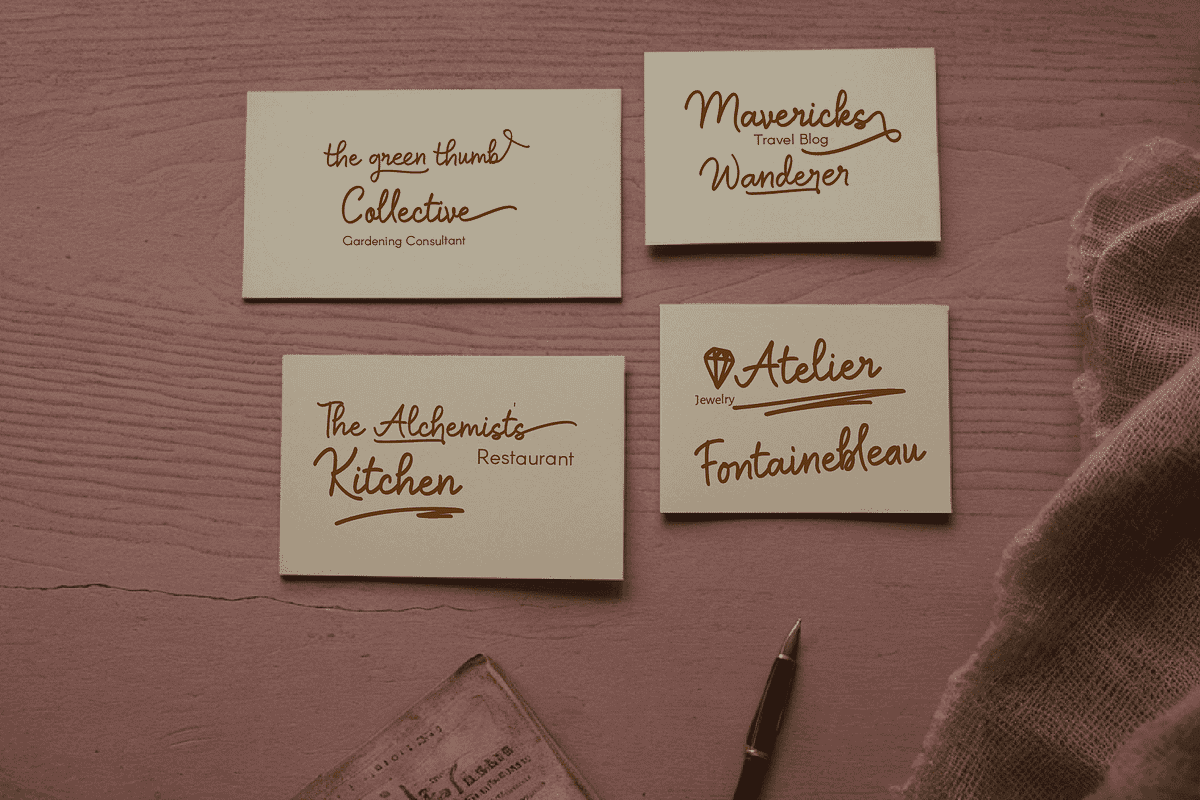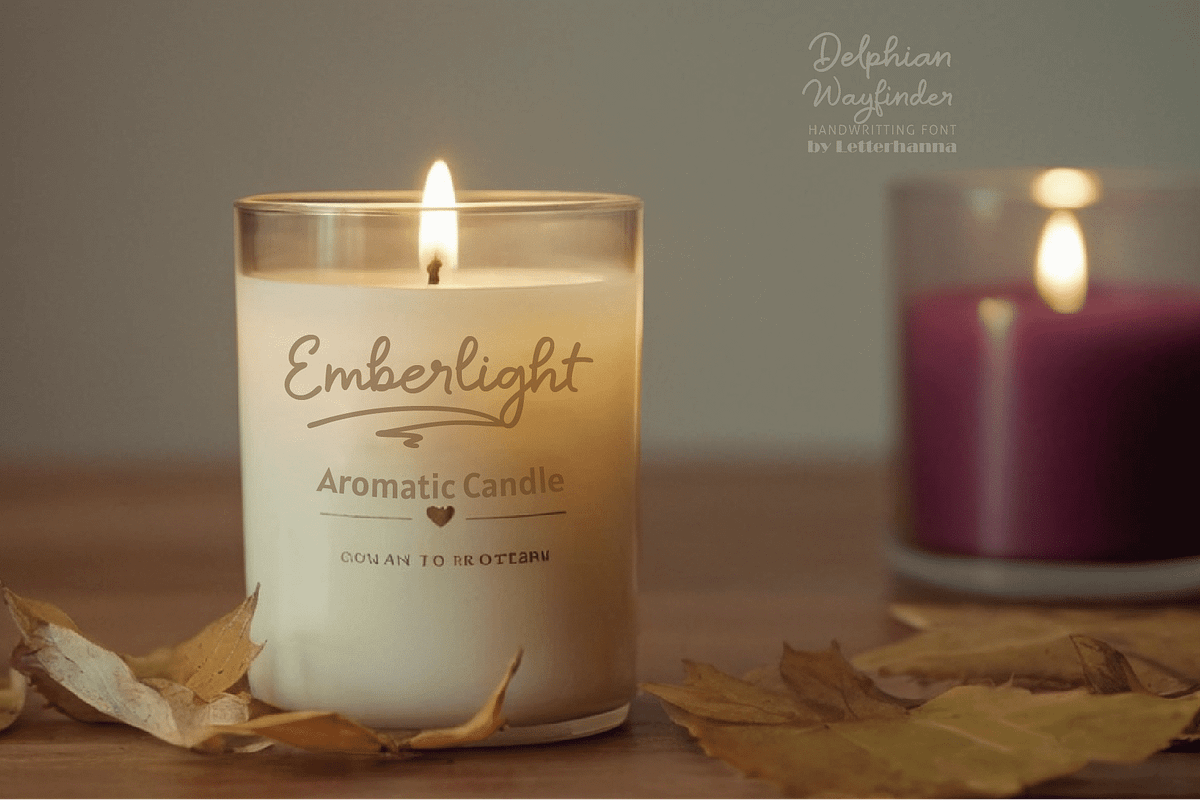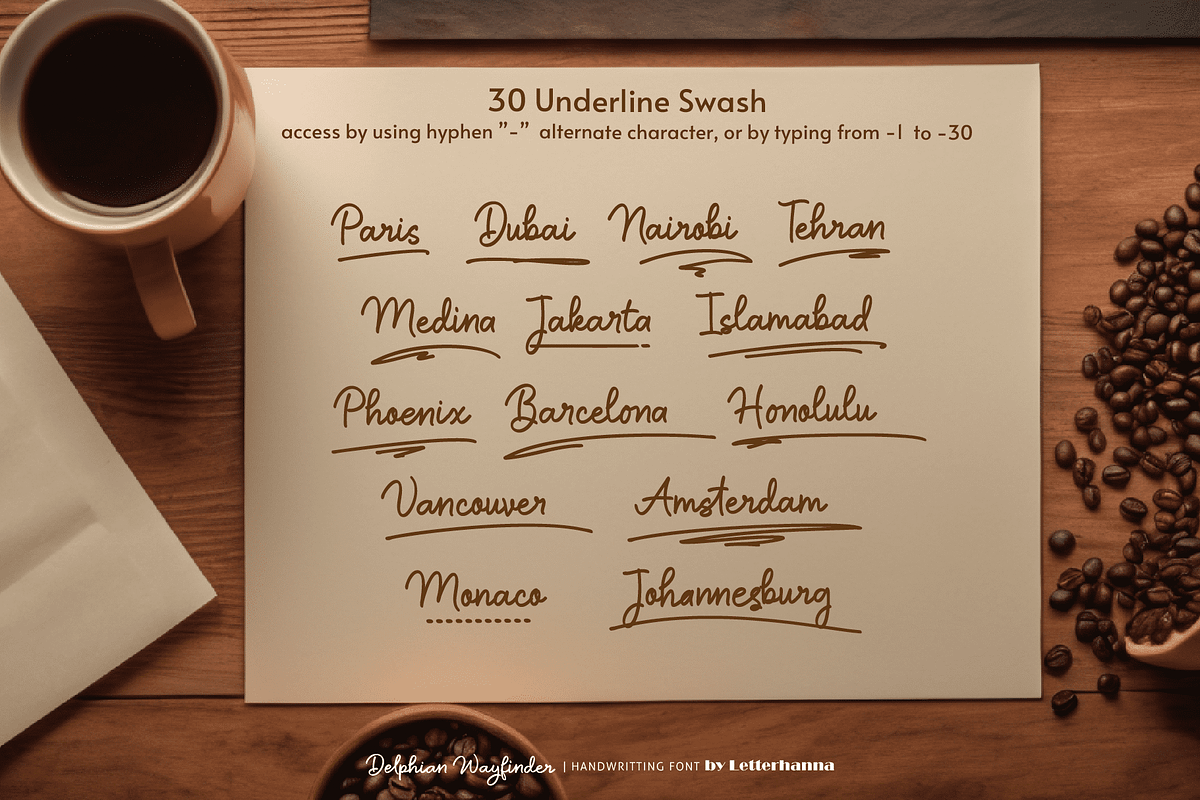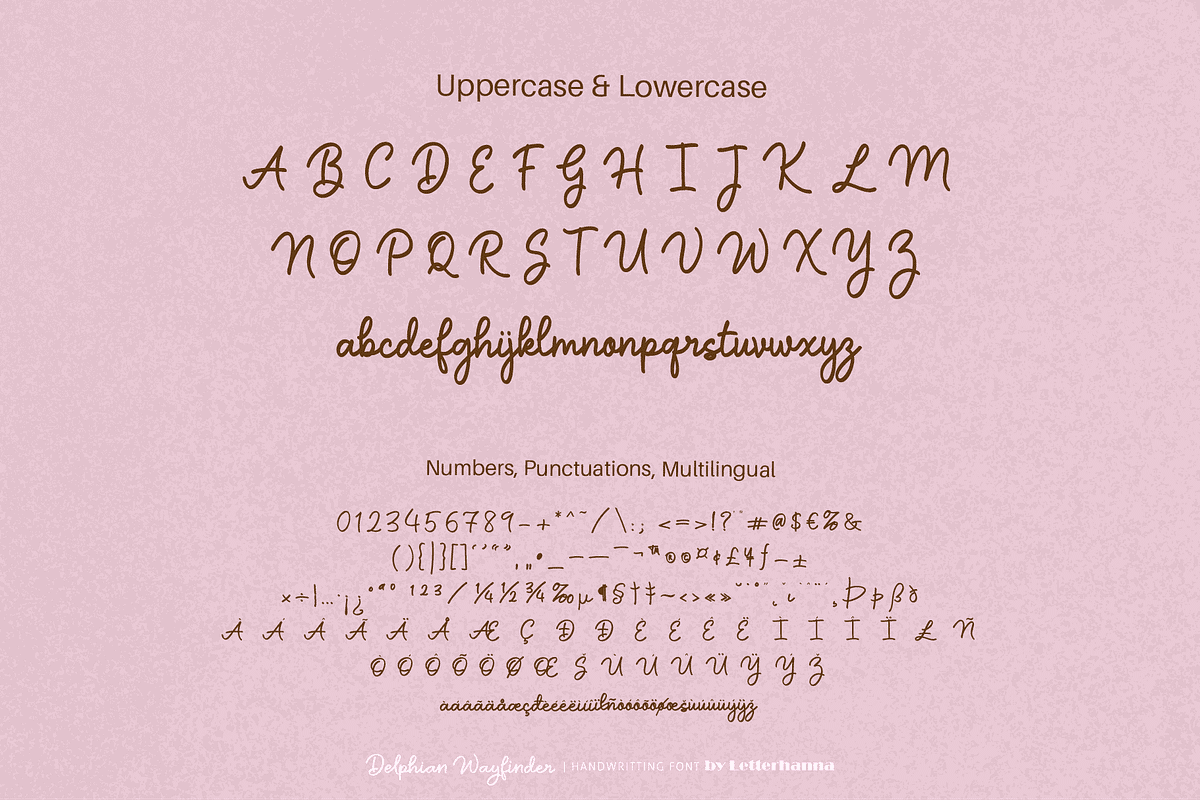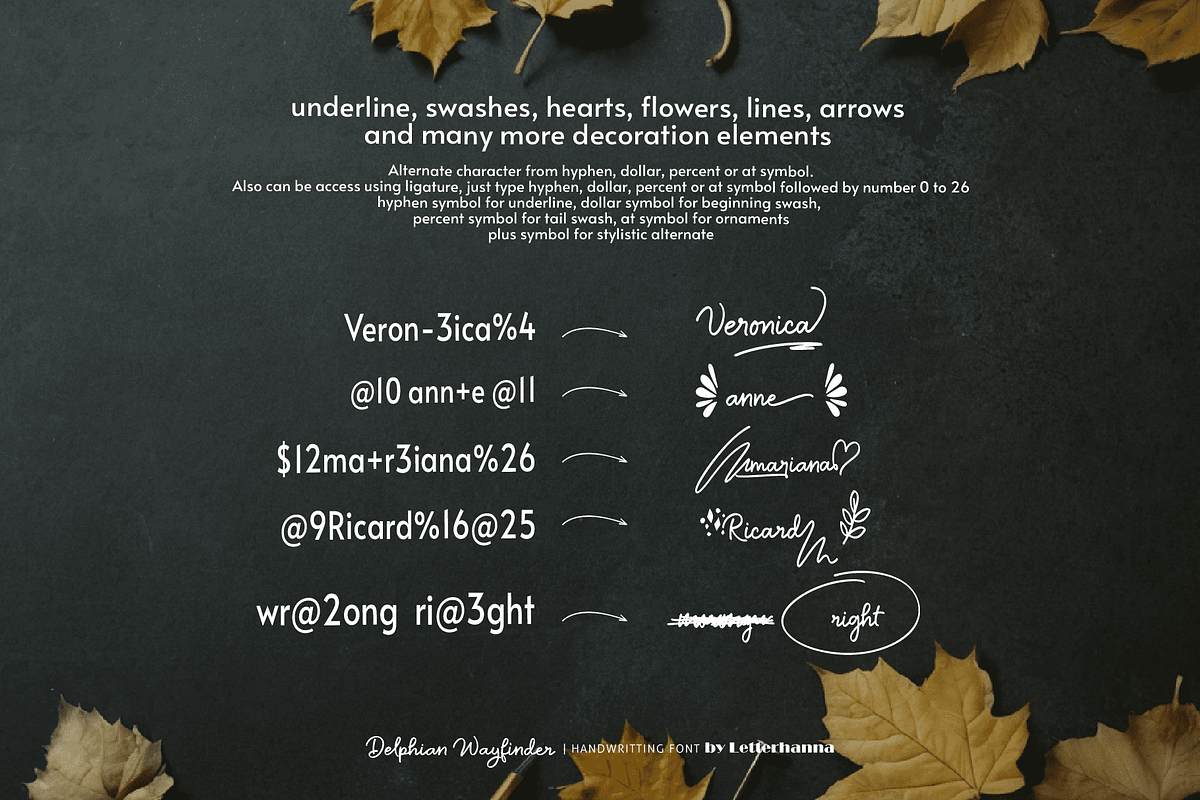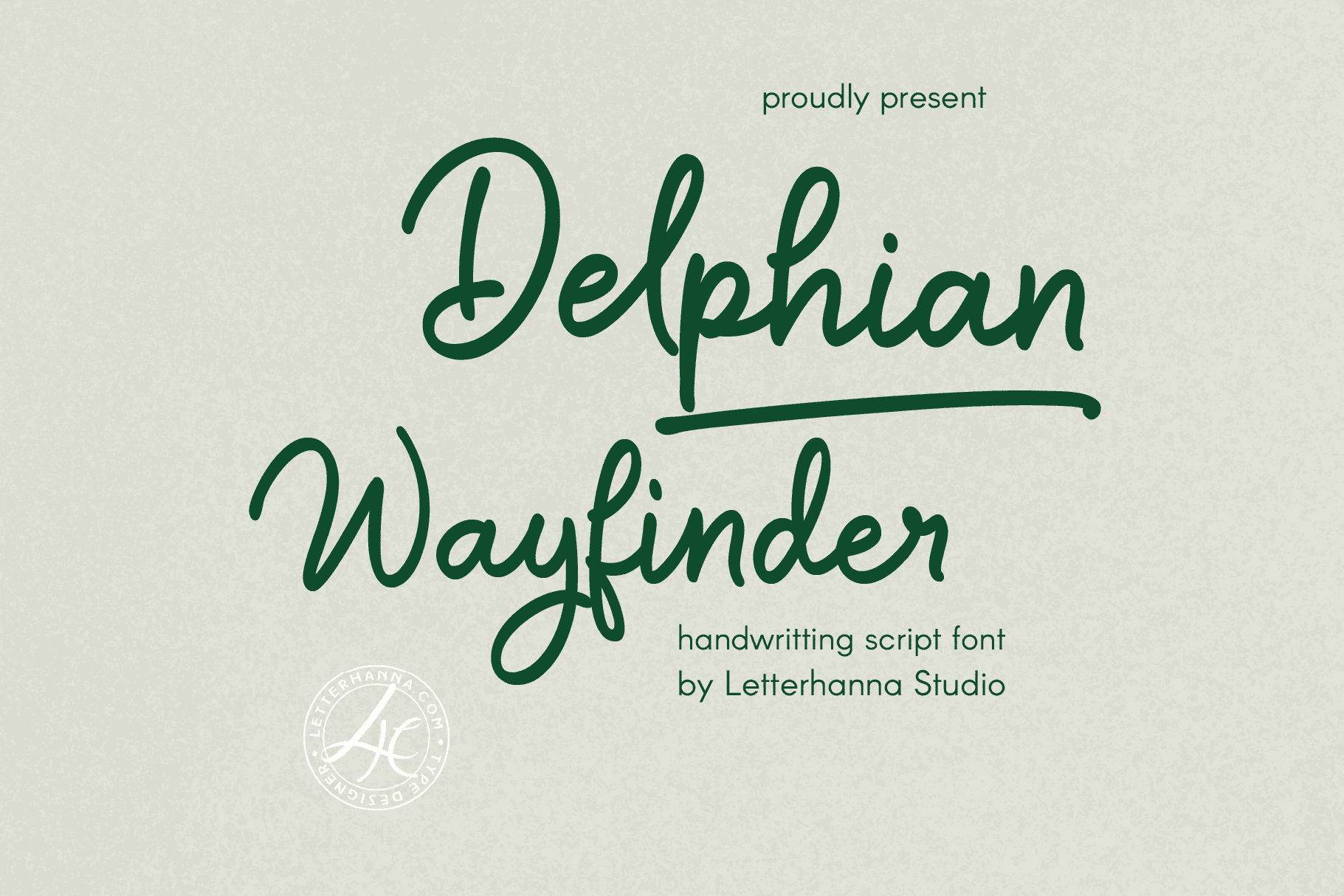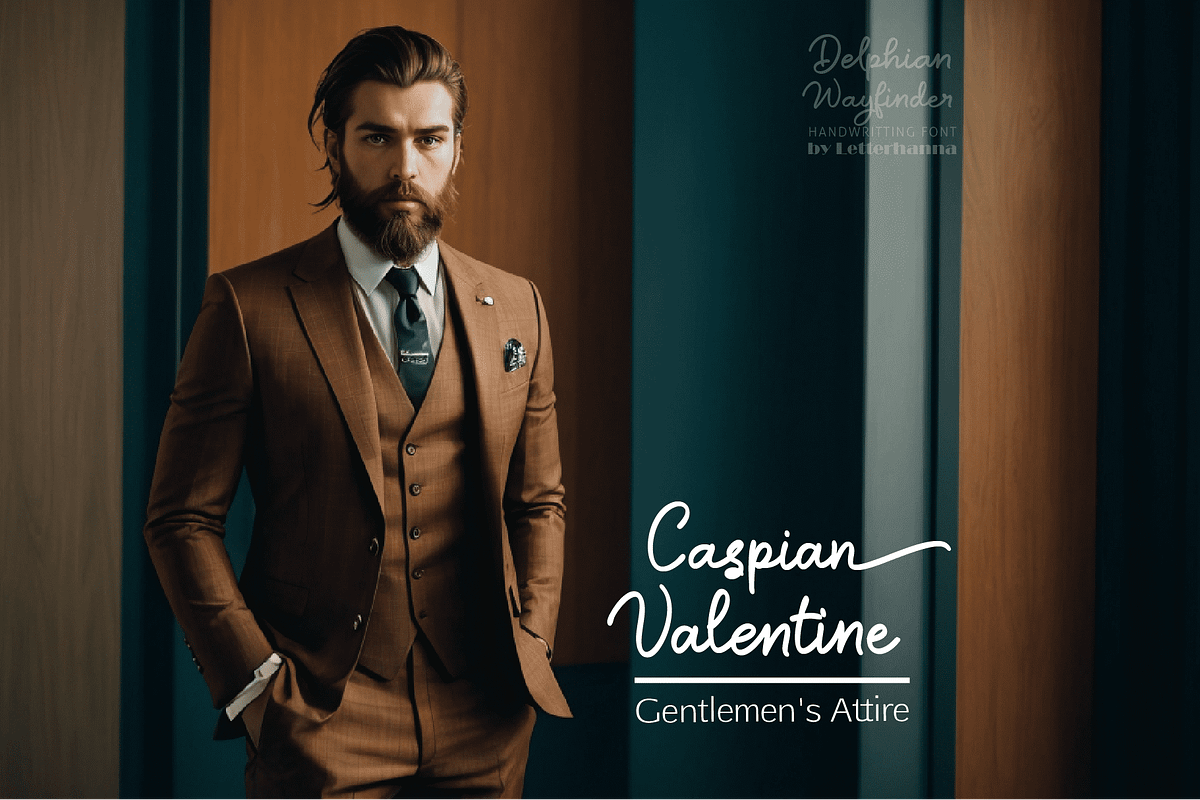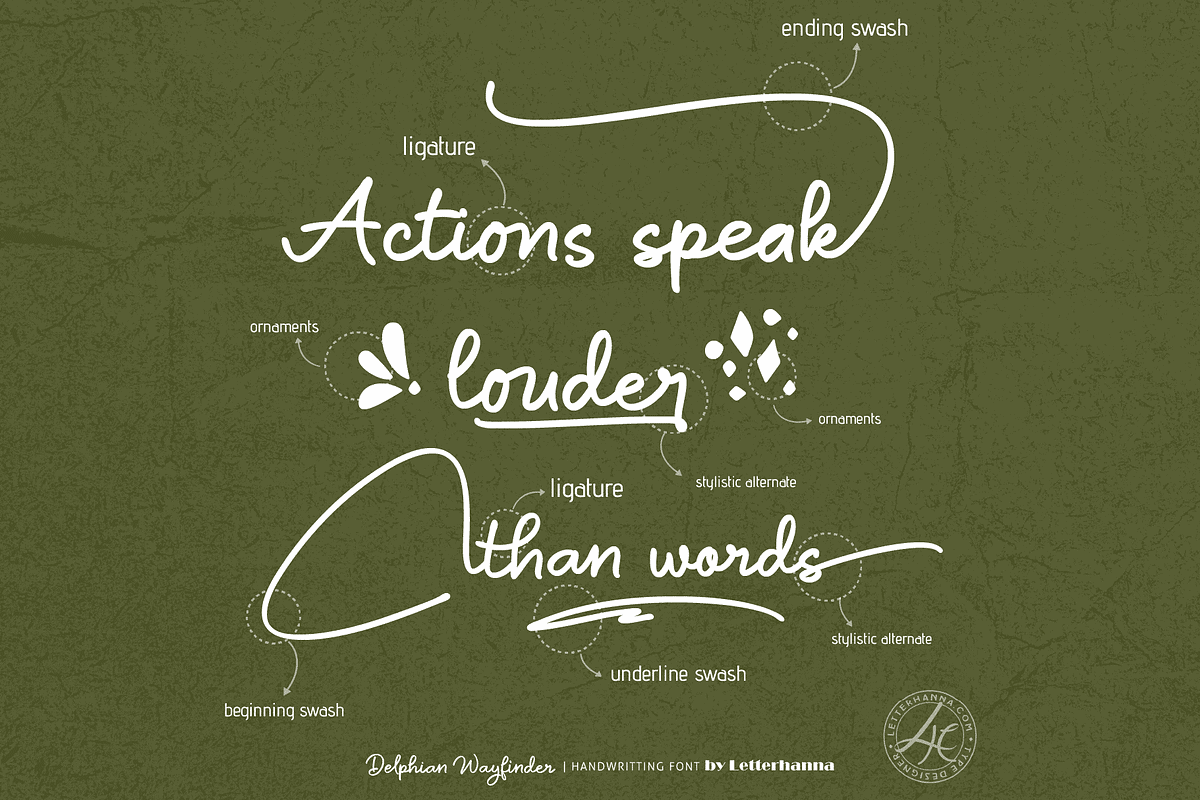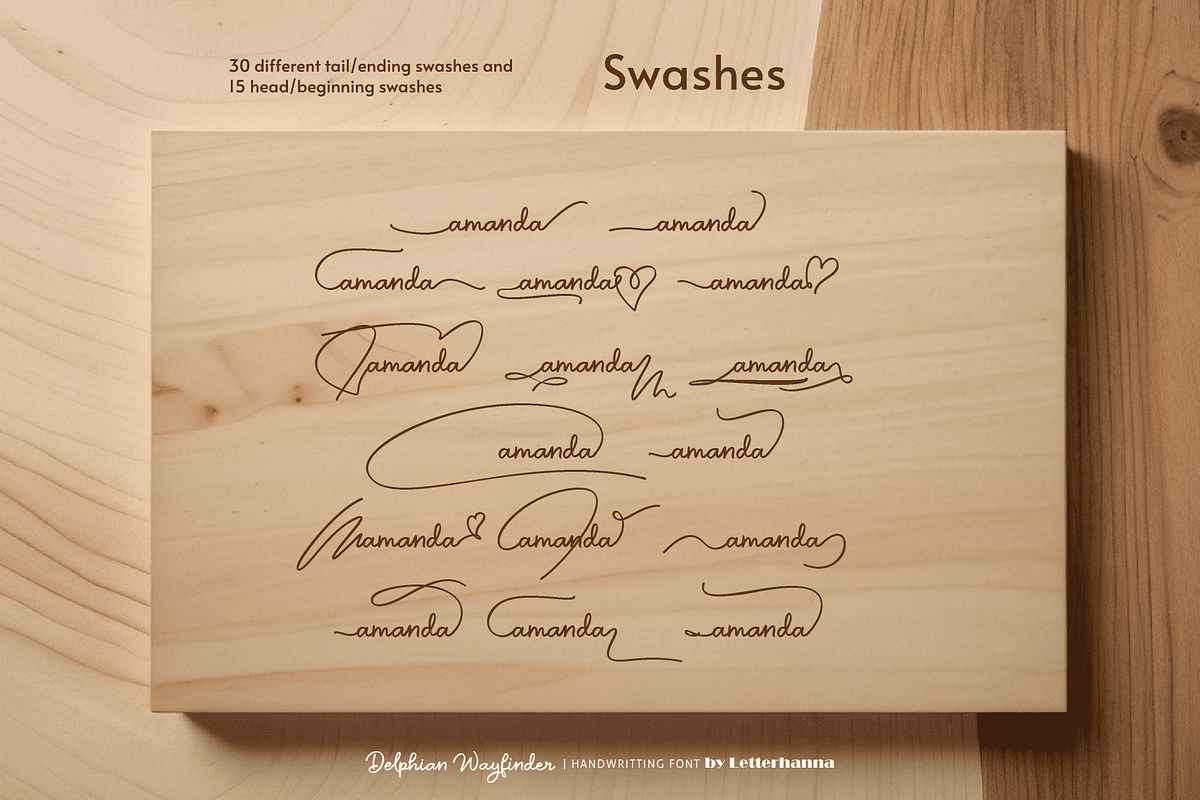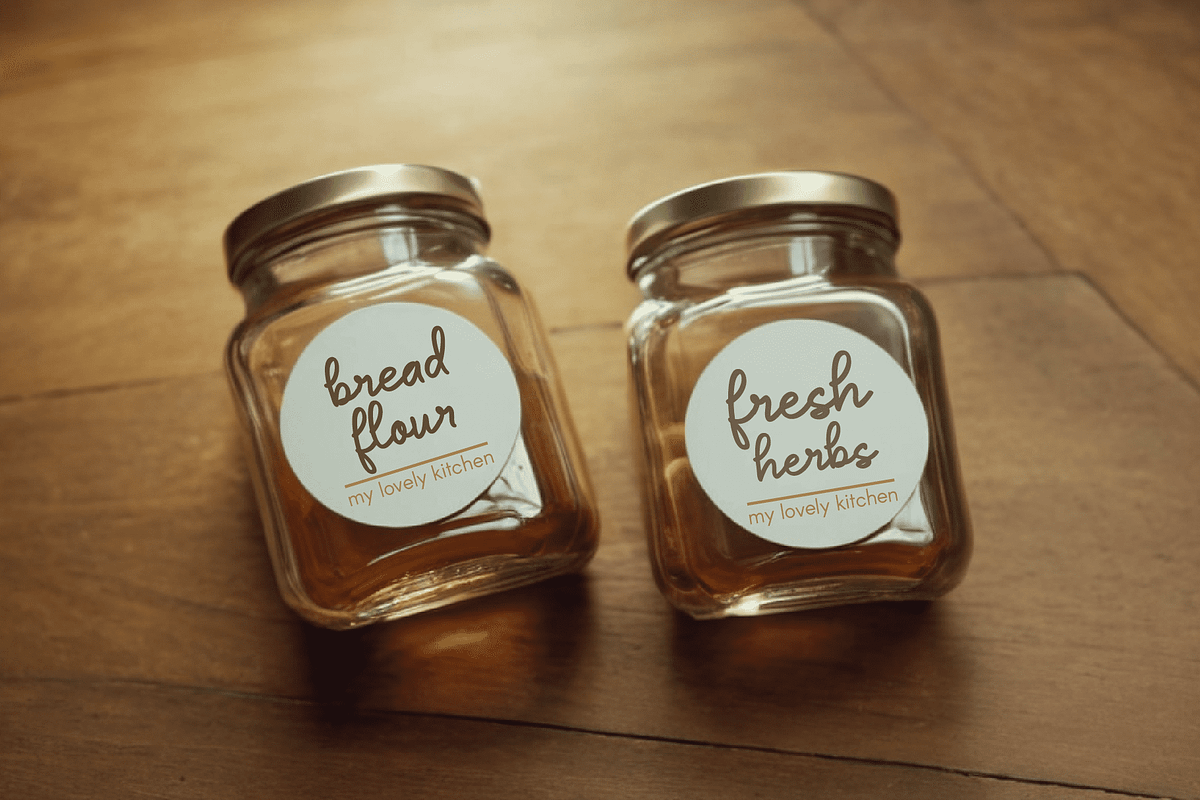
Delphian Wayfinder Font
Unveiling Delphian Wayfinder: A Font for the Journey
Introducing Delphian Wayfinder, a new typeface designed to guide your creative path. Inspired by the ancient oracle of Delphi, known for its wisdom and prophetic pronouncements, this font embodies clarity and direction. Delphian Wayfinder's elegant curves and balanced structure evoke a sense of timeless knowledge, perfect for projects that demand both authority and approachability.
Whether you're crafting captivating headlines, informative text, or impactful branding materials, Delphian Wayfinder will lead you to success. Navigate your design journey with confidence and clarity, letting this versatile font illuminate your message.
Easy Access to Glyphs and Swashes
Gain easy access to all alternate glyphs, swashes, ornaments, and underlines by simply using ligatures. You can try them out yourself in the font preview tool on our website, letterhanna.com.
Accessing Stylistic Alternates
Stylistic alternates can be accessed by typing a plus symbol "+" in front of the original letter. For example, type "+a" to get the stylistic alternate of the letter a.
Accessing Swashes and Ornaments
-Underline Swashes: Use a hyphen symbol "-" followed by a number between 1 and 30. For example, type "-3", "-22", or "-17" to get various underline swashes.
-Head/Beginning Swashes: Use a dollar sign "$" followed by a number between 1 and 9. For example, type "$2" or "$8" to get different head/beginning swashes.
-Tail/Ending Swashes: Use a percent sign "%" followed by a number between 1 and 30. For example, type "%3" or "%15" to get various tail/ending swashes.
-Ornaments: Use an "at" symbol "@" followed by a number between 1 and 26. For example, type "@4" or "@13" to get different ornaments.
PUA Encoding for Ease of Use. The Delphian Wayfinder Font is also PUA encoded, which means you can access all the glyphs and swashes with ease!
Uppercase and lowercase letters
Numbers and punctuation marks
Beginning and ending swashes
Underline swashes
Stylistic alternates
Ornaments
Easy access to swashes using ligatures